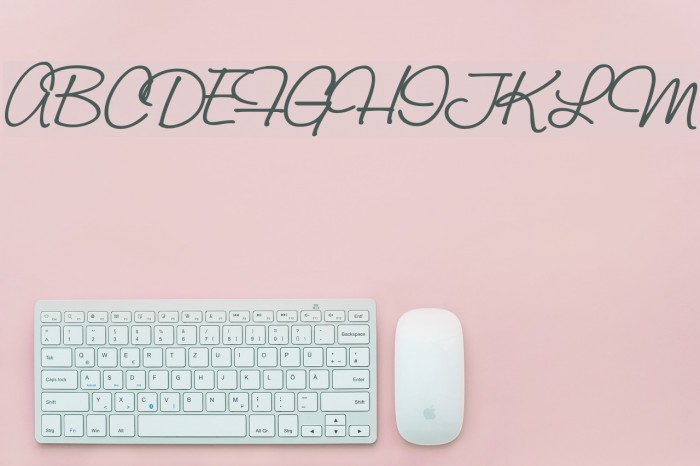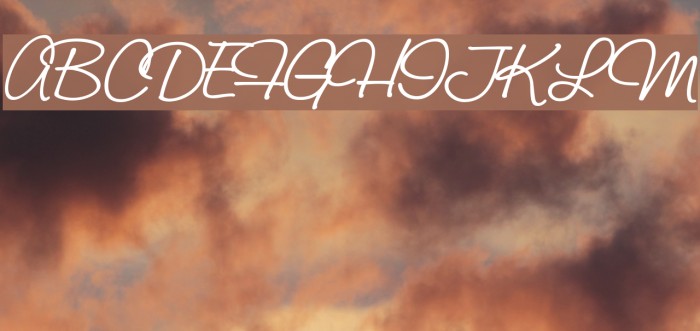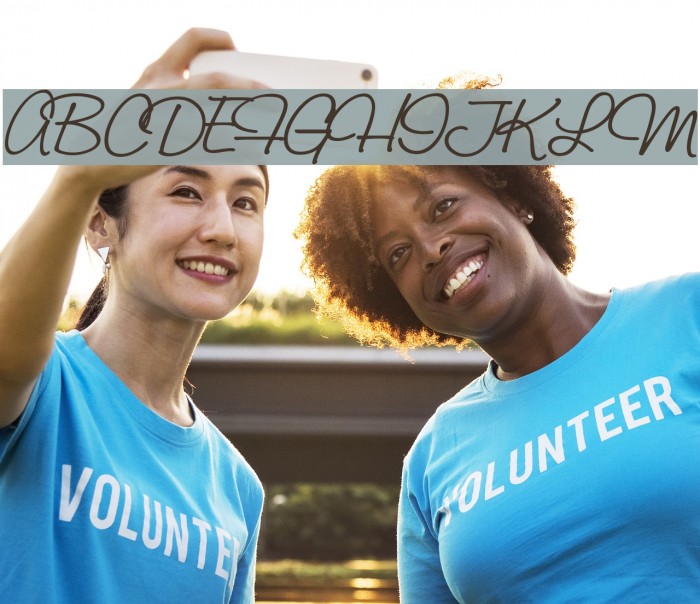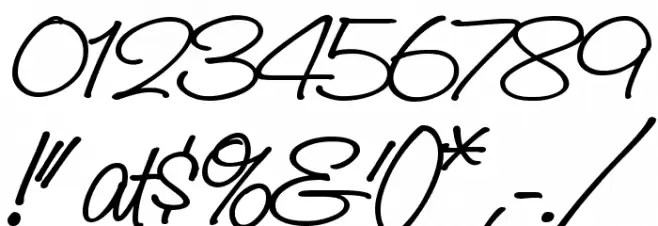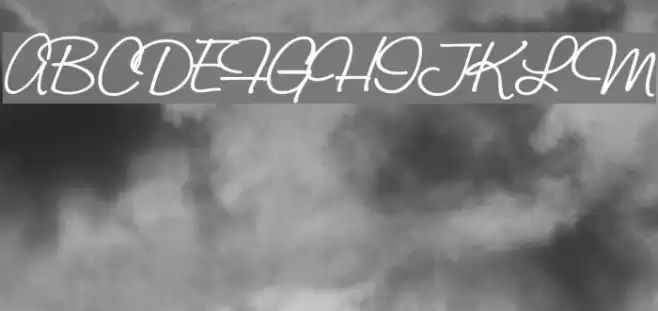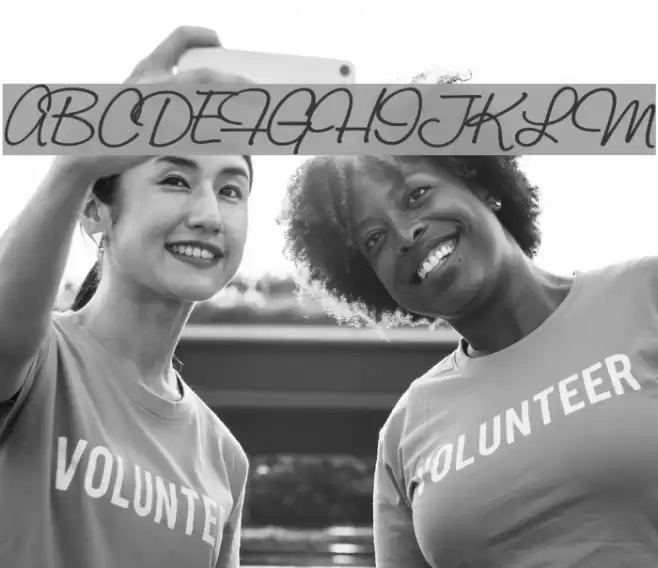
Saginaw Bold Font
This font features a bold, cursive style with a flowing, handwritten appearance. The uppercase letters are elegantly connected, giving a sense of continuity and fluidity. The lowercase letters maintain a consistent style, with smooth curves and loops that enhance the handwritten feel. The numerals are distinct and clear, maintaining the same boldness and style as the letters. Special characters are well-integrated, matching the overall aesthetic. This font exudes a sense of elegance and personal touch, making it suitable for projects that require a personal or artistic flair.
A bold, cursive font with a flowing, handwritten style.
- Proposed Projects: Ideal for invitations, greeting cards, personal branding, and artistic projects.
- Use Case: Logos, Headlines, Invitations